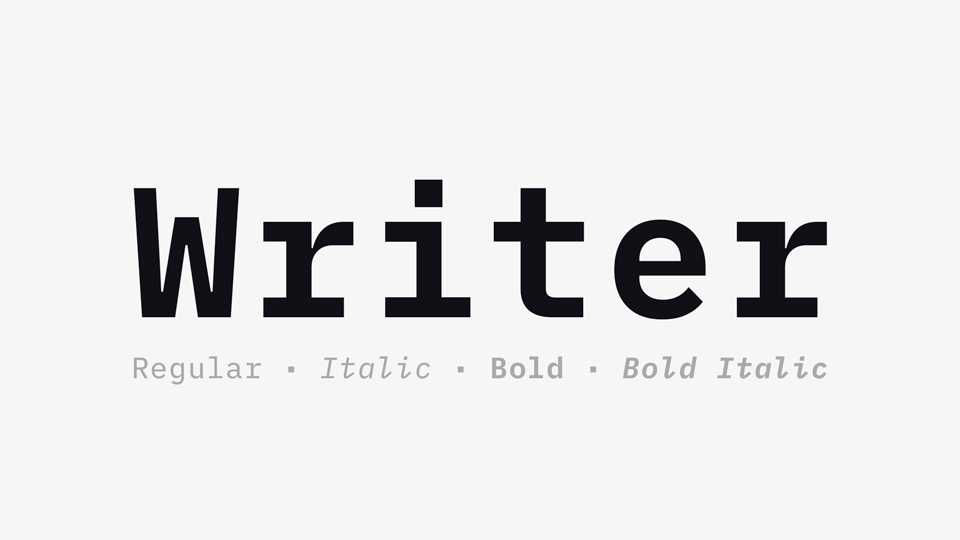
Download Writer typeface, a monospaced font family with four styles inspired by iA Writer Mono with increased letter-spacing and tuned weights. Great fit for long-term writing.
Designer: Nikita Prokopov